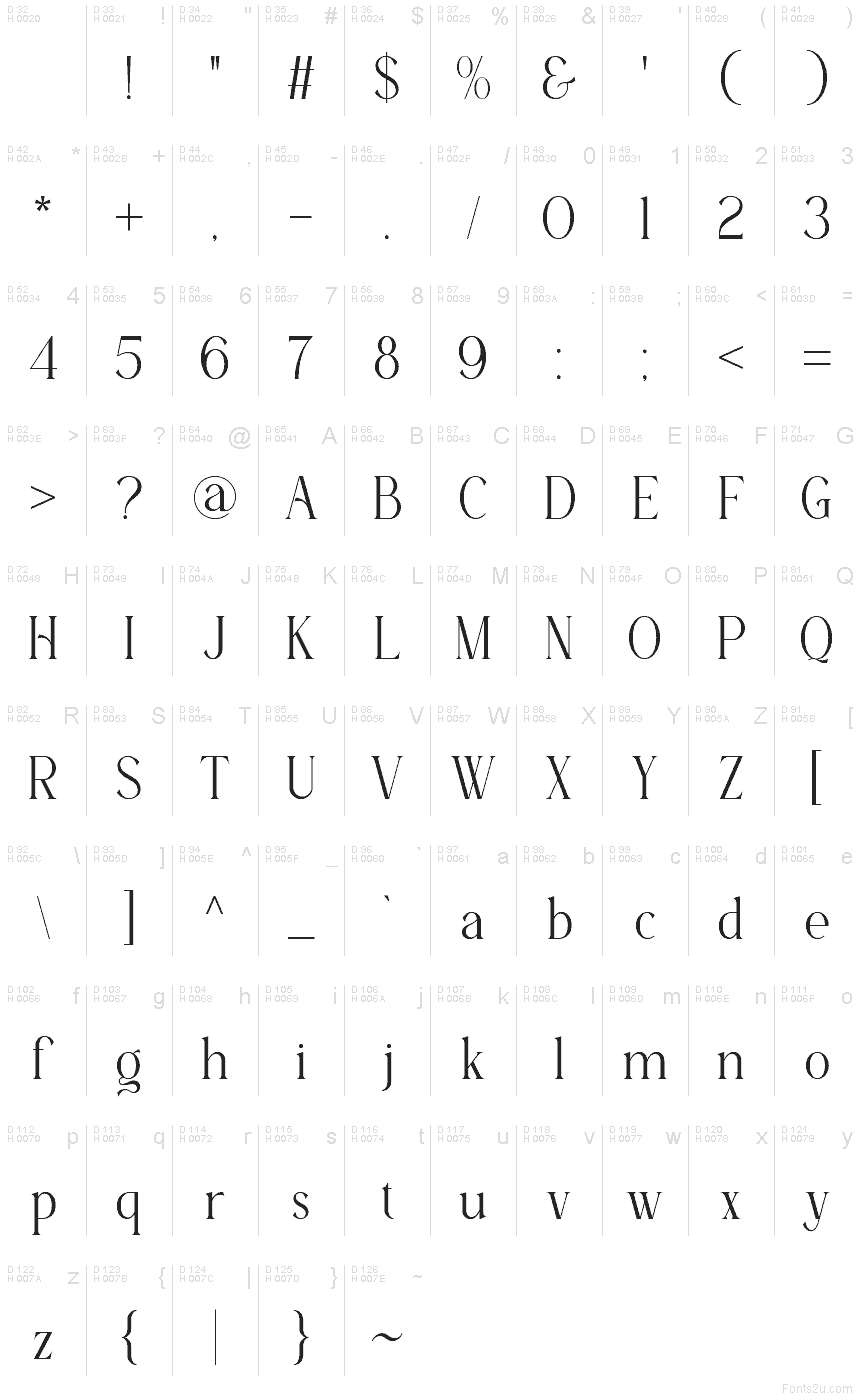
Kinnora
Kinnora font by ErmediaStudio is a free elegant serif font. It solves a familiar dilemma: you want lavish drama without losing clarity. Kinnora’s crisp verticals and inky, ribbon-like curves deliver that sweet spot—elegant and striking, yet spaced just enough to read cleanly at headline sizes. The rhythm snaps between thick and thin, giving titles a couture sheen without feeling brittle.
Using Kinnora, your work shines on fashion branding, editorial headlines, boutique logos, beauty packaging, wedding invitations, luxury menus, and social media posters. This free font carries a poised, modern voice that feels upscale without shouting. Pair it with a simple, neutral sans for body copy, and let Kinnora handle the entrances—big, airy, and confident.